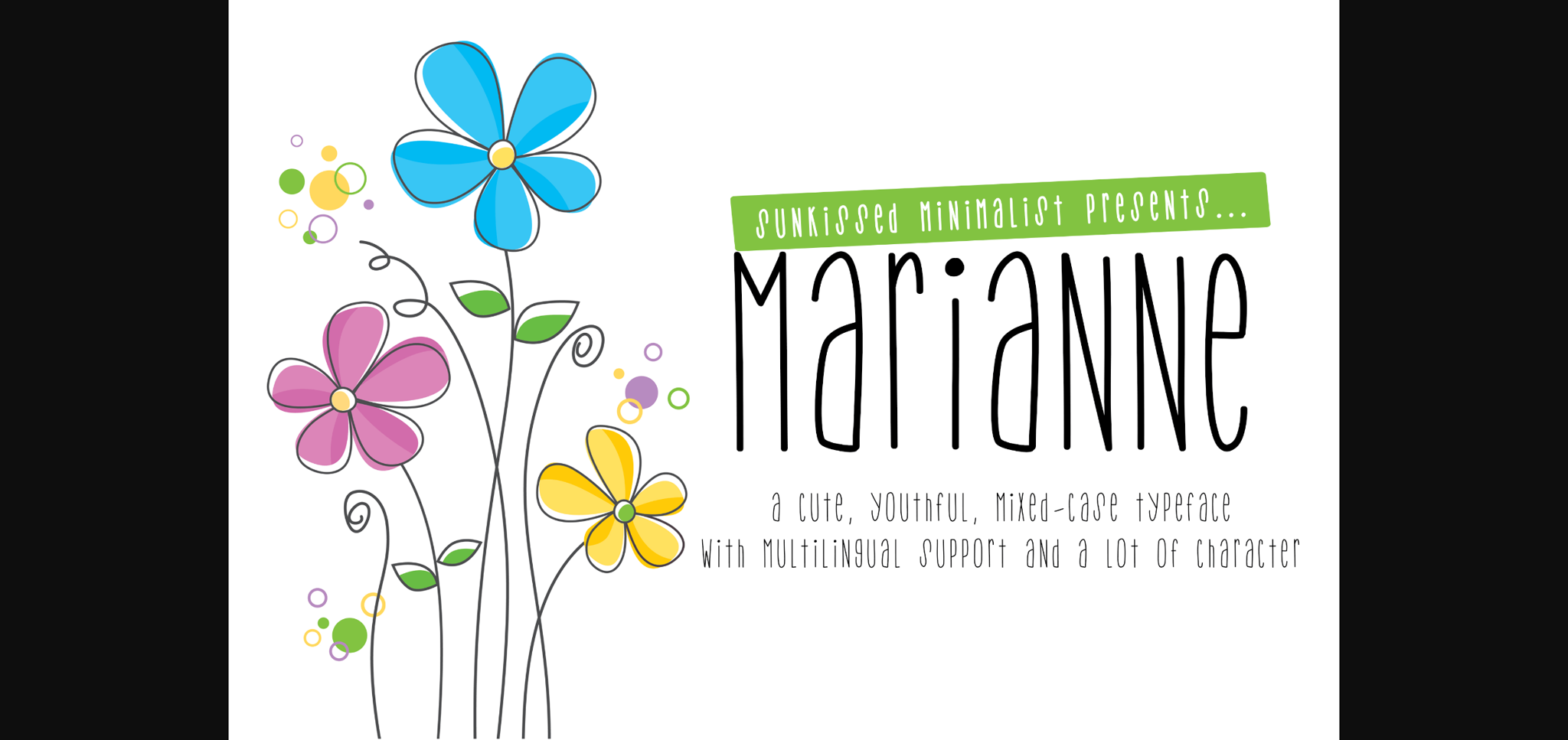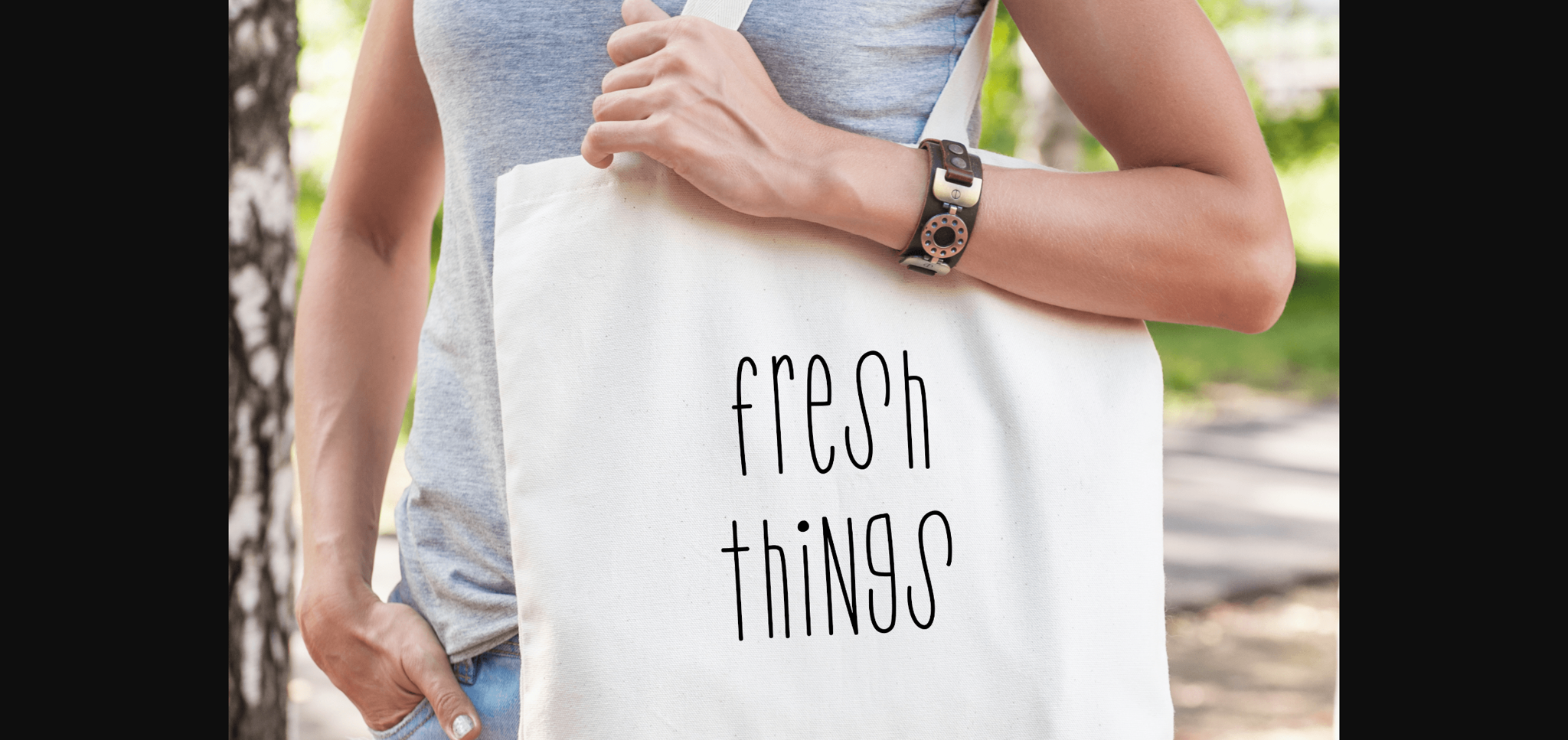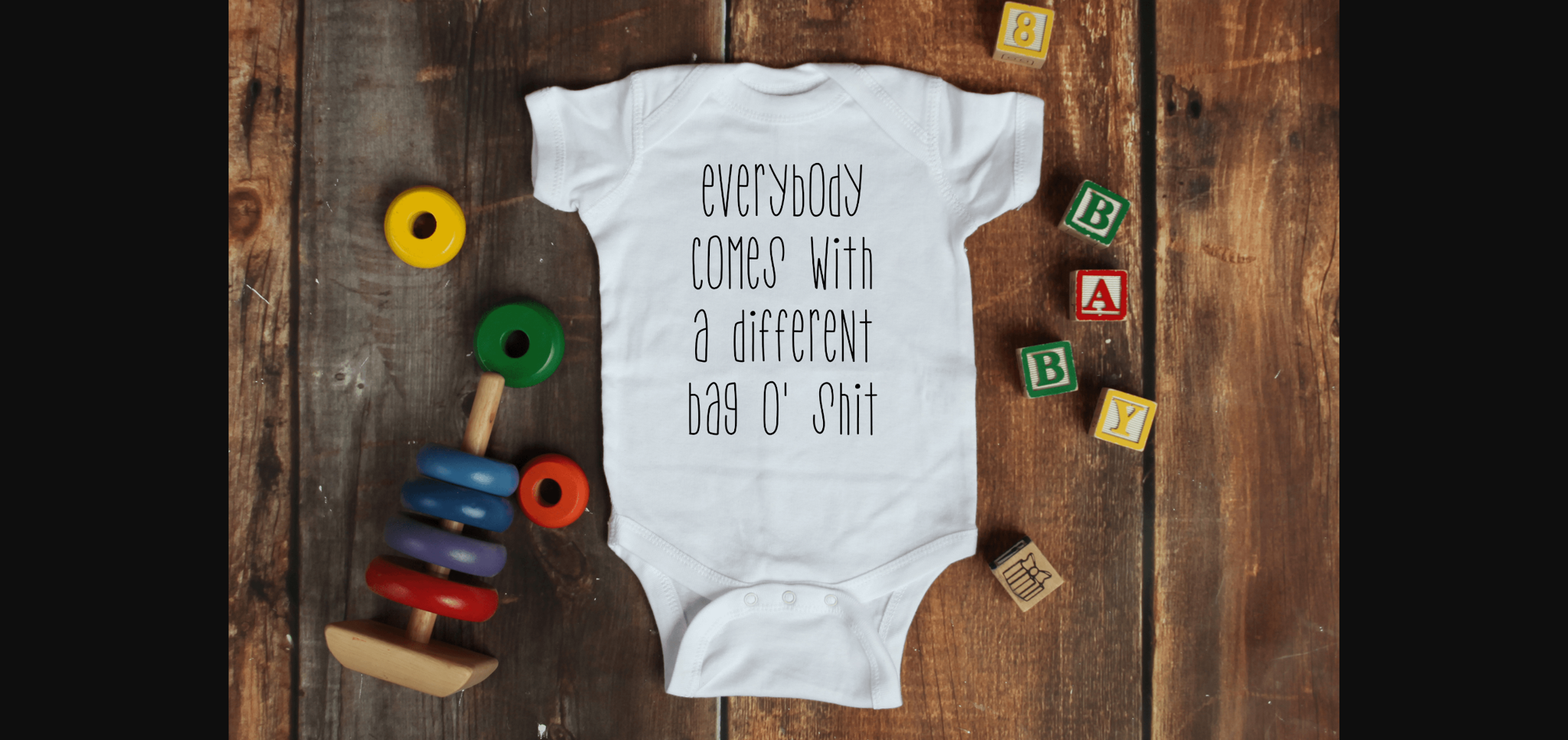
About Marianne Font
Marianne is a cute, girly, feminine handwritten font with mixed-case letters. This font is perfect for greeting cards, invitations, posters, t-shirt designs or anything that needs a fun and lovely touch.